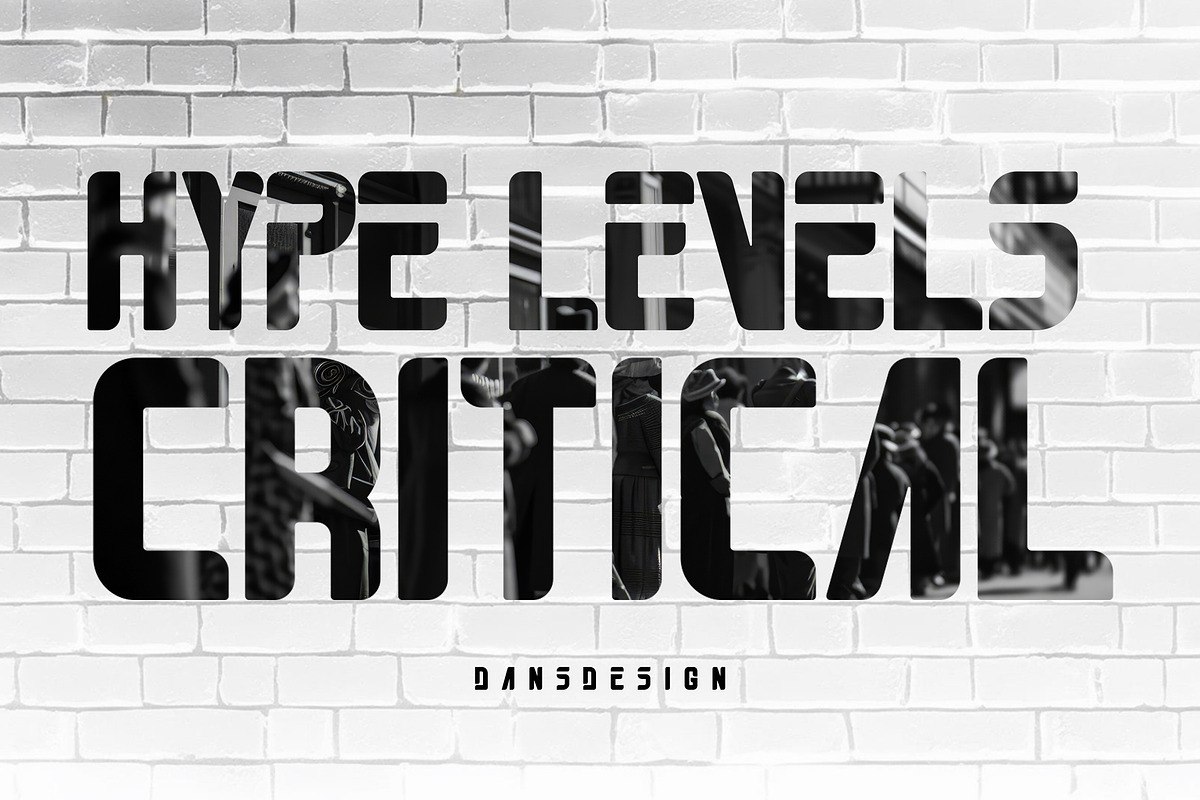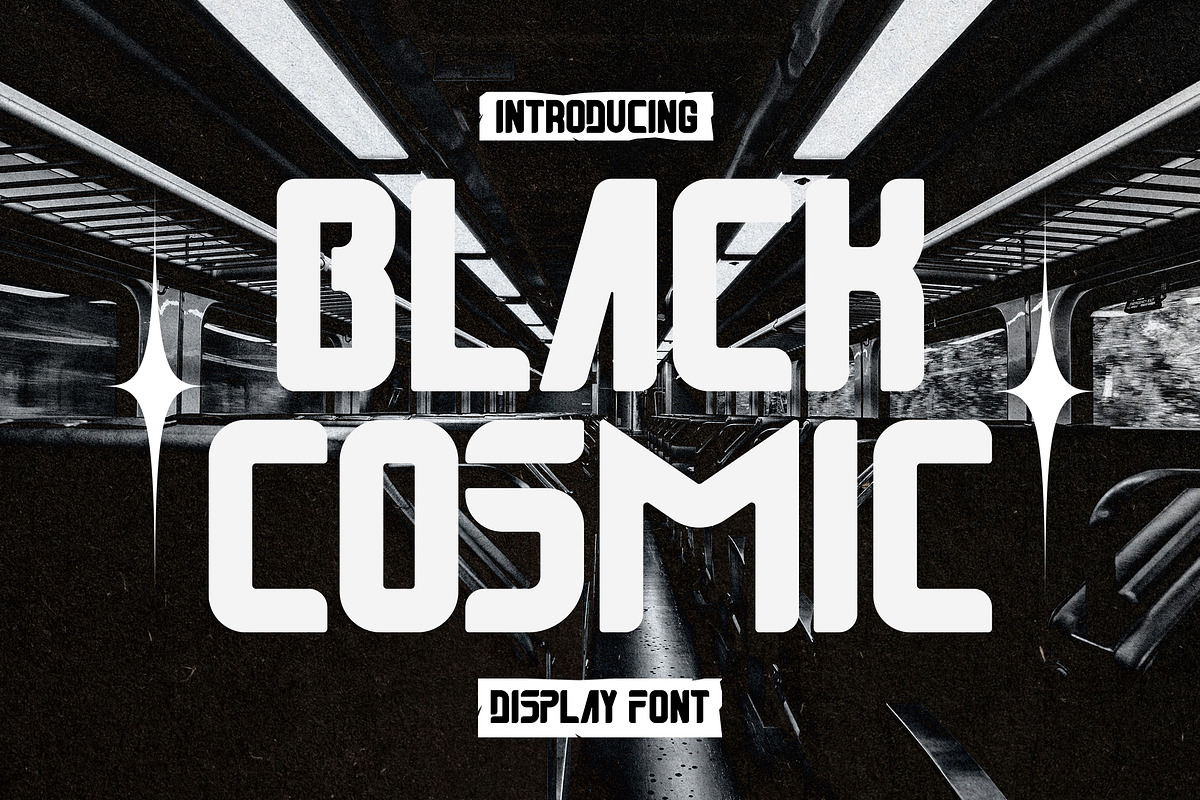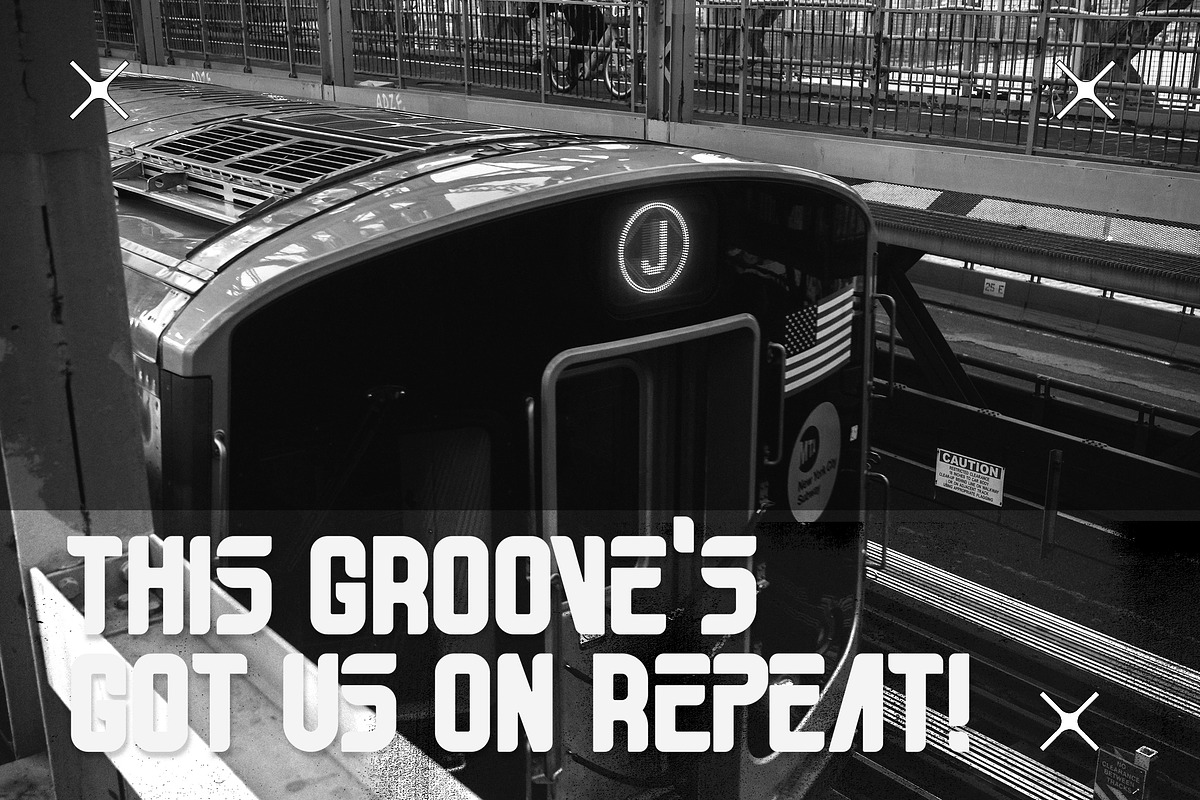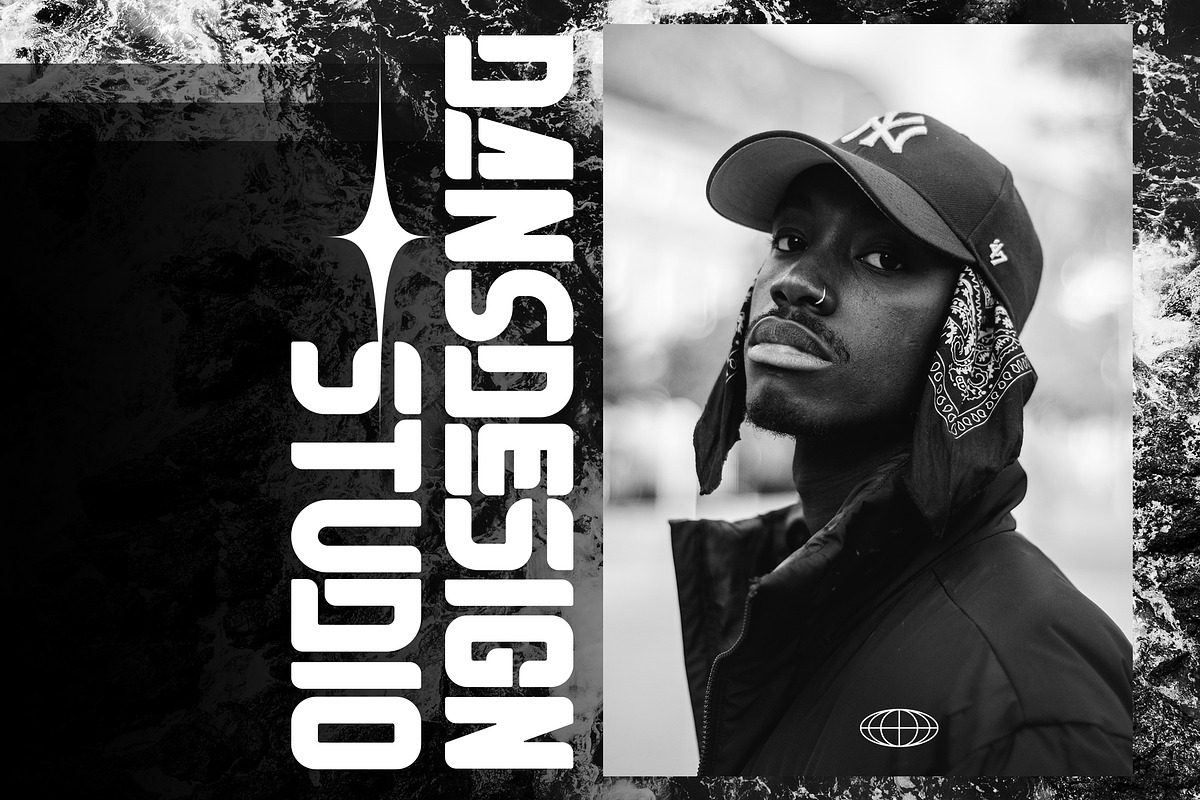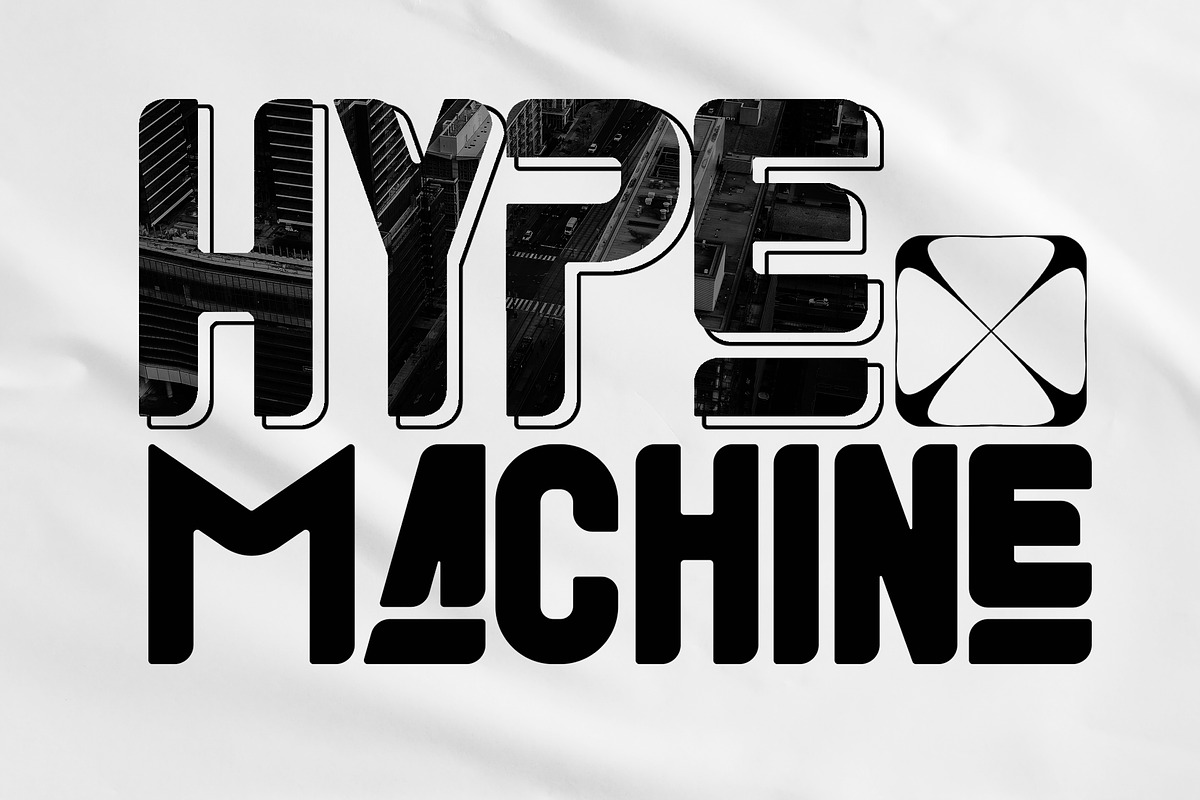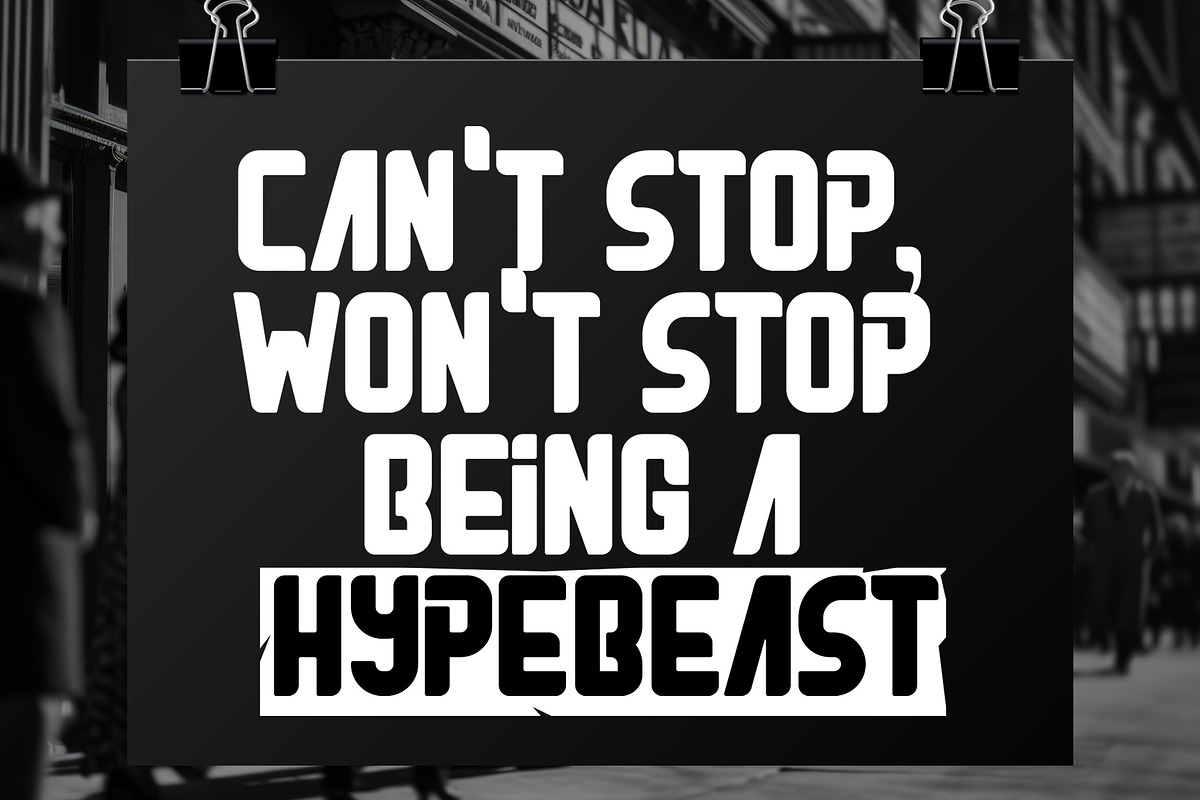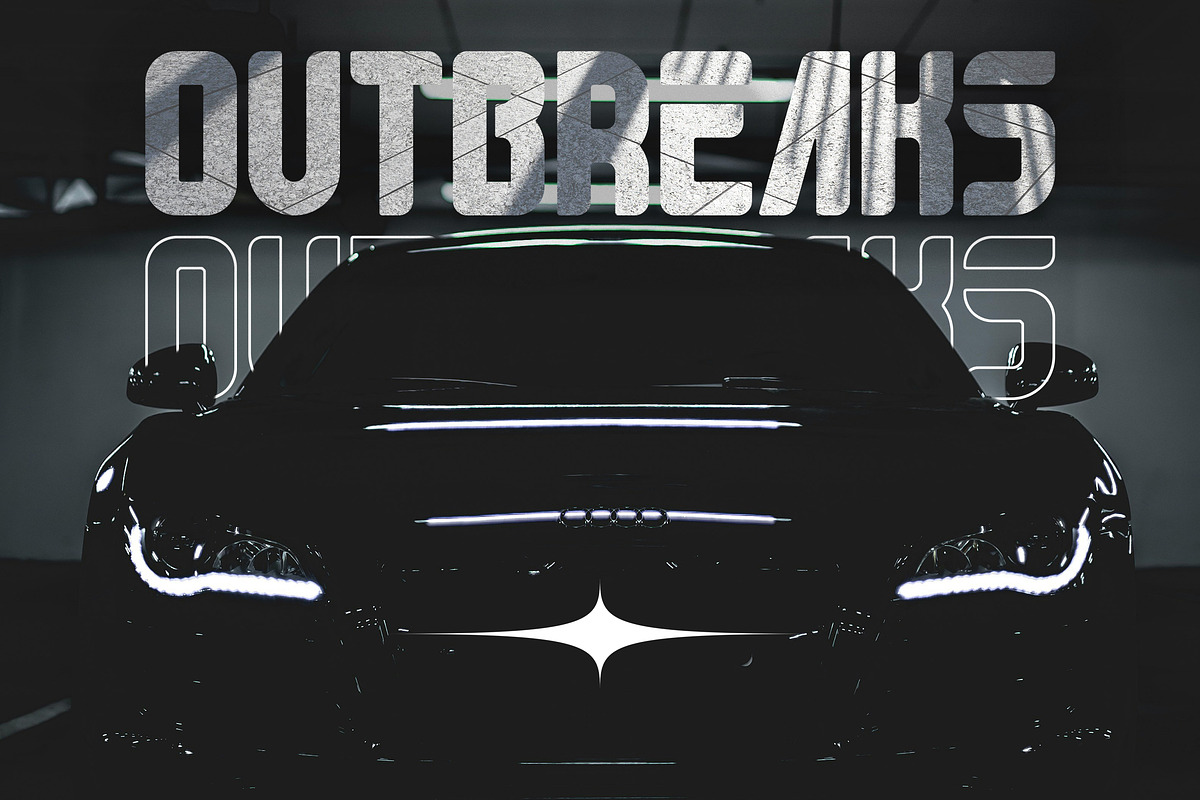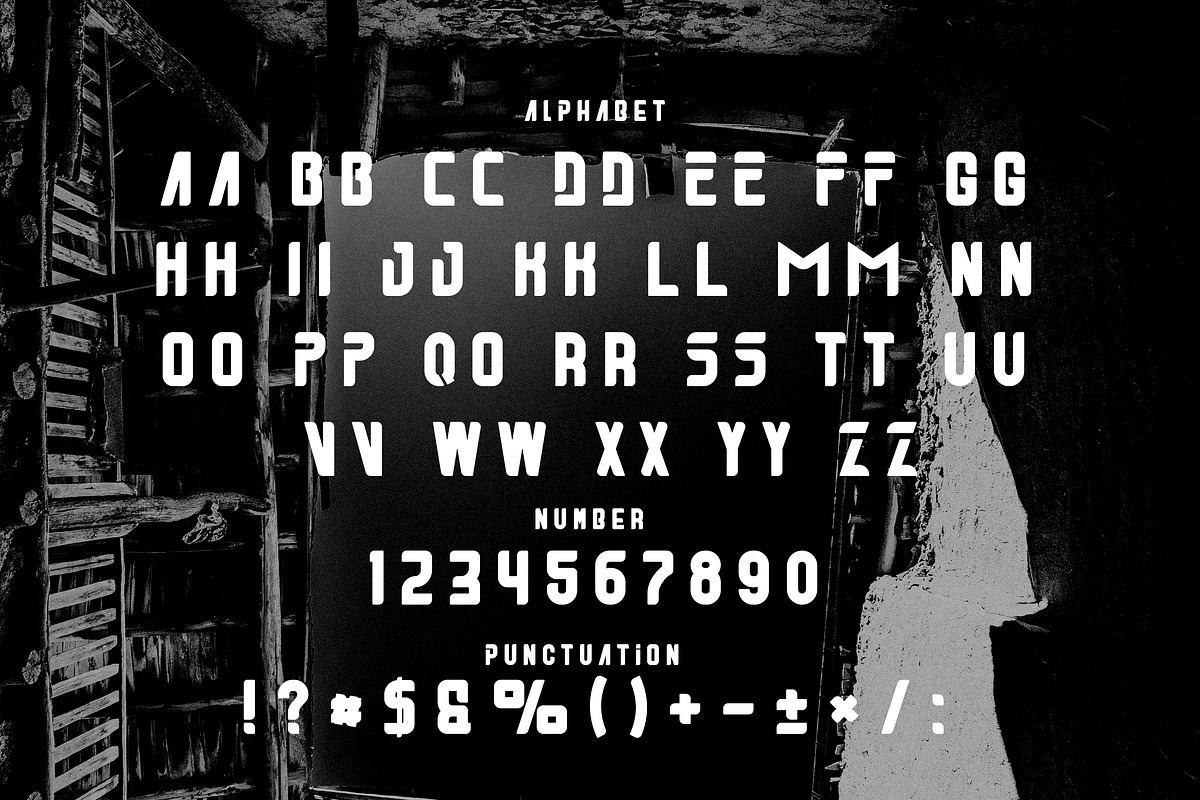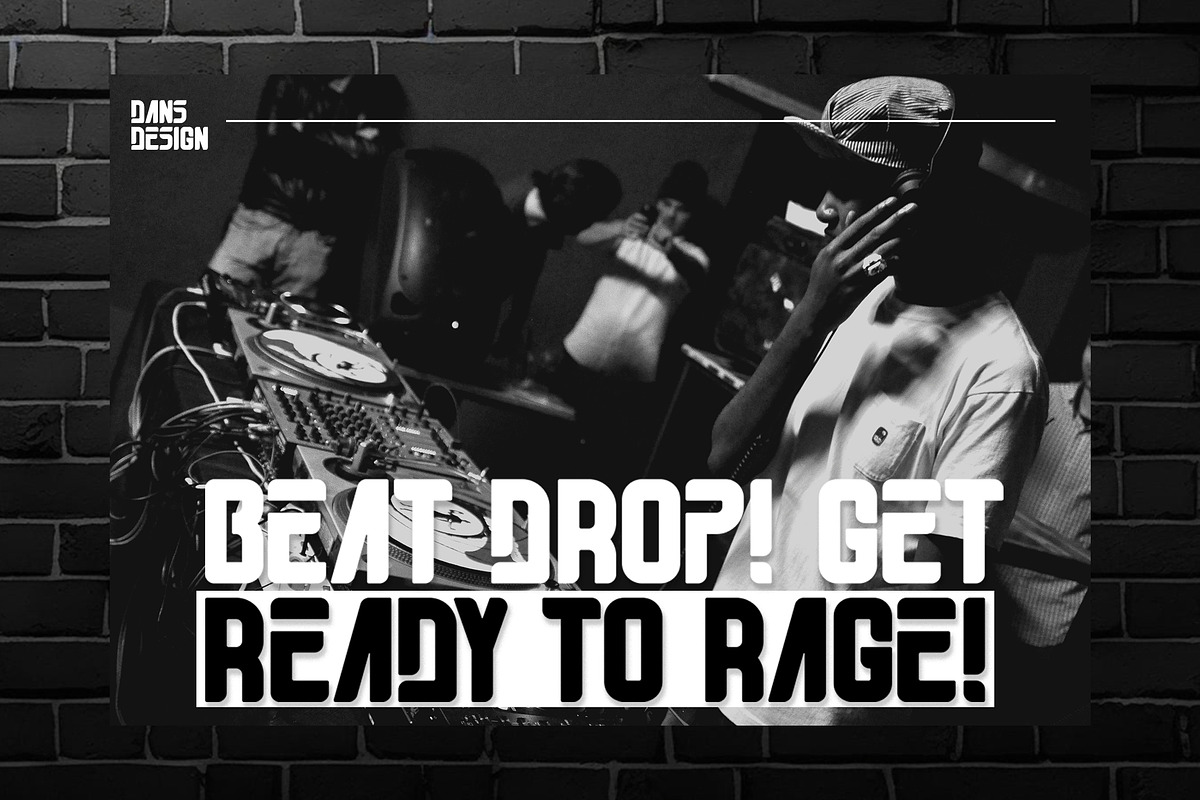
Black Cosmic Futuristic Y2k Display
Black Cosmic Futuristic Y2k Display Font Black Cosmic Futuristic Y2k Display Fontis highly detailed and slick Blackletter font. It will be a great choice for beautiful cyberpunk futuristic designs, sports business branding, logos, vintage designs, films, posters, clothing, illustrations and more.
Featured : Accents (Multilingual characters) PUA encoded Numerals and Punctuation (OpenType Standard)